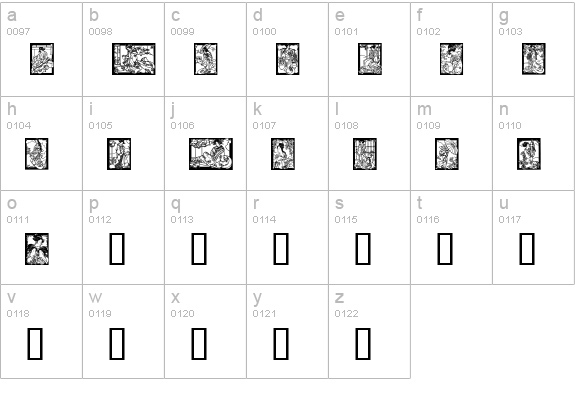
Geisha font is a beautiful and elegant typeface that exudes sophistication and charm. Its graceful curves and intricate details make it perfect for adding a touch of refinement to any design project. Whether you are creating invitations, posters, or branding materials, Geisha font will surely make your text stand out. The best part about Geisha font is that it is available for free! You can easily download this stunning font from FontsMarket.com and start using it in your projects right away. With its unique style and versatility, Geisha font is a must-have for any designer looking to add a touch of class to their work.